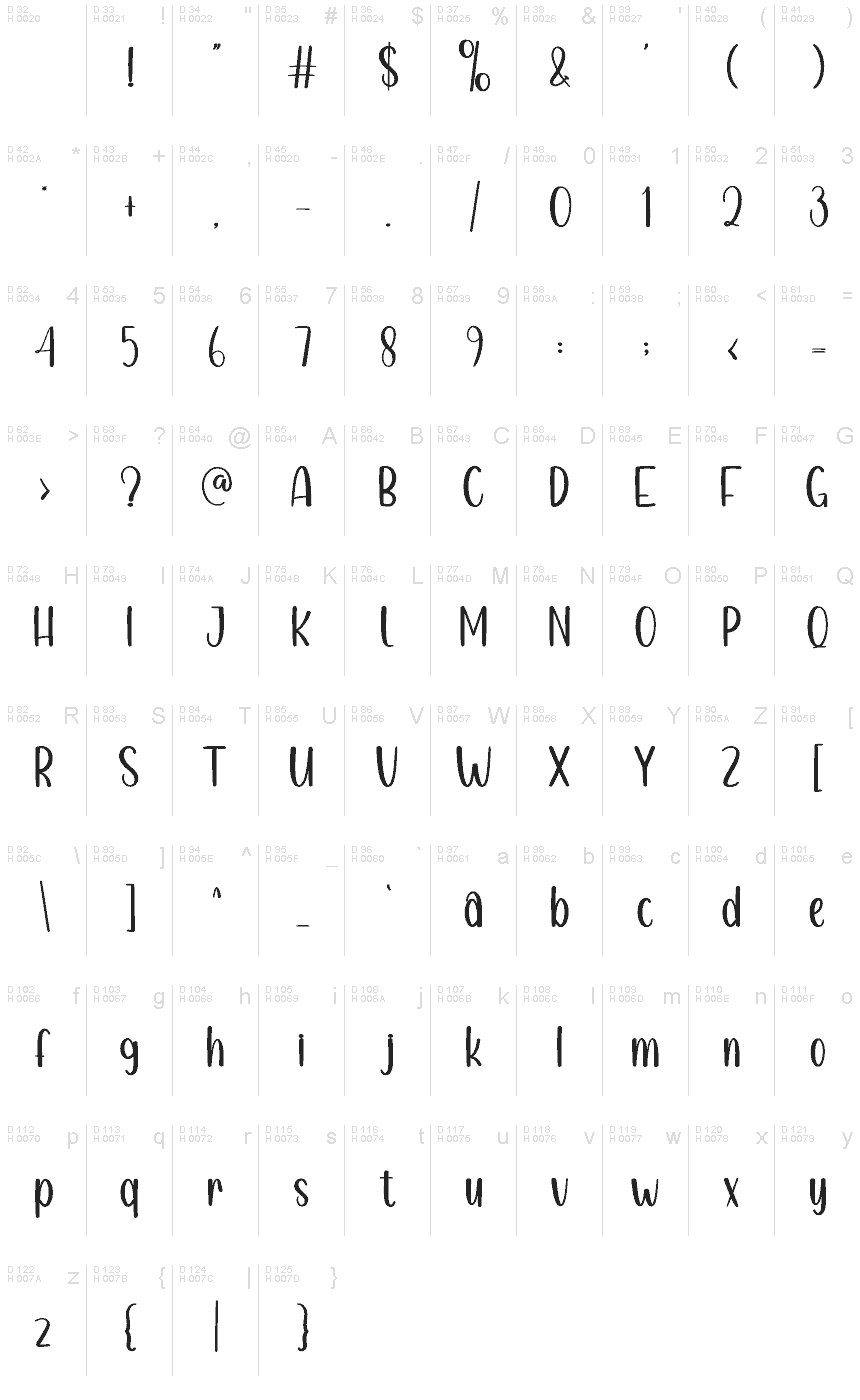
Cheeks
Cheeks font, designed by Andi Moz, is a handwritten font with a condensed width. Cheerful and vivid, the typeface conveys warmth and friendliness that turn it into an approachable and expressive choice for any context. Light strokes make its modern style appear sophisticated despite the casual tone that is primarily dominant.
Use Cheeks in all branding-related projects where it’ll help develop client trust and convince them to purchase such products and services. Contexts like advertisements, product packaging, containers, invitation designs, social media posts or stories are excellent options for proper use of this modern aesthetic font that is offered free of charge.